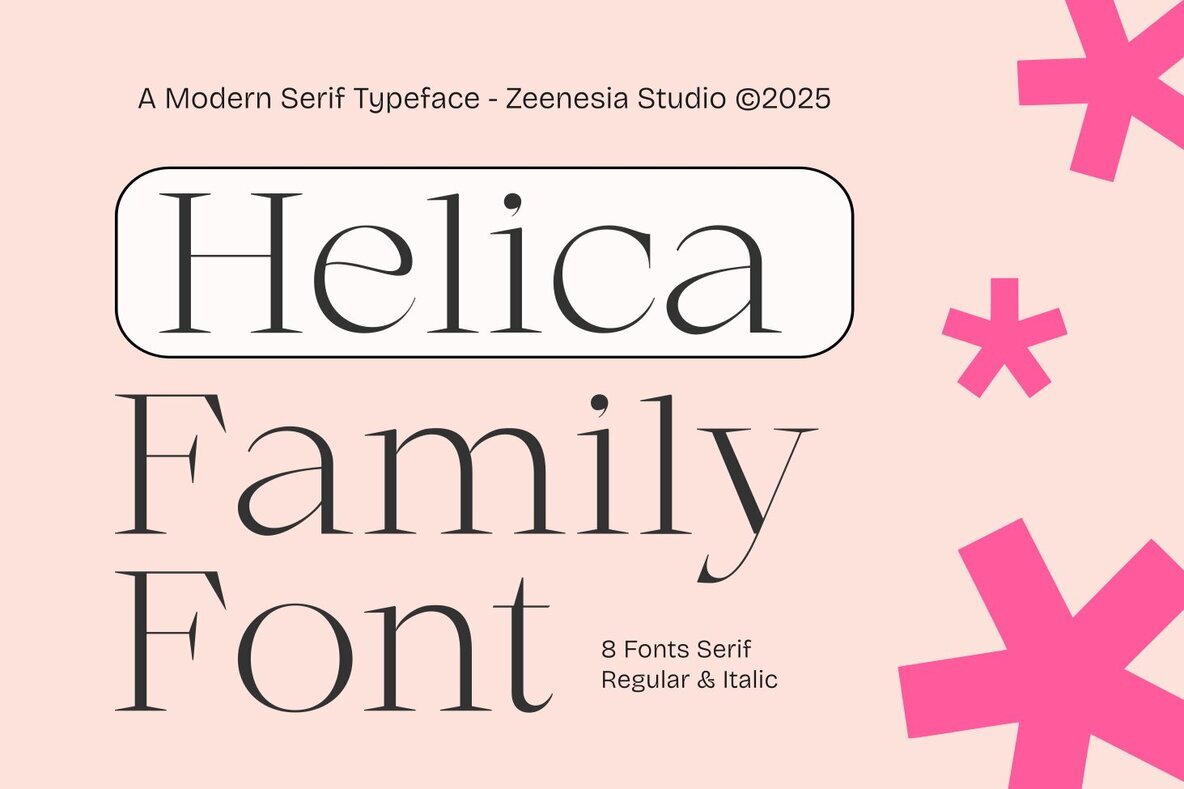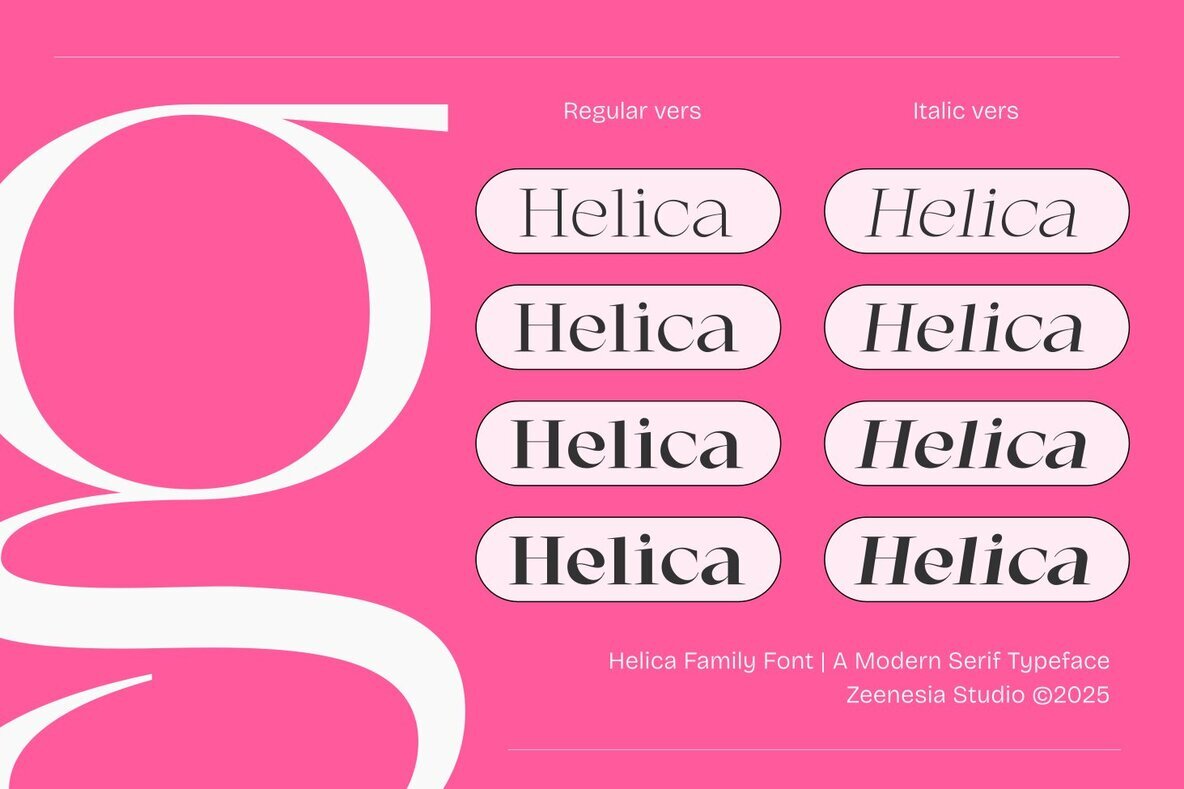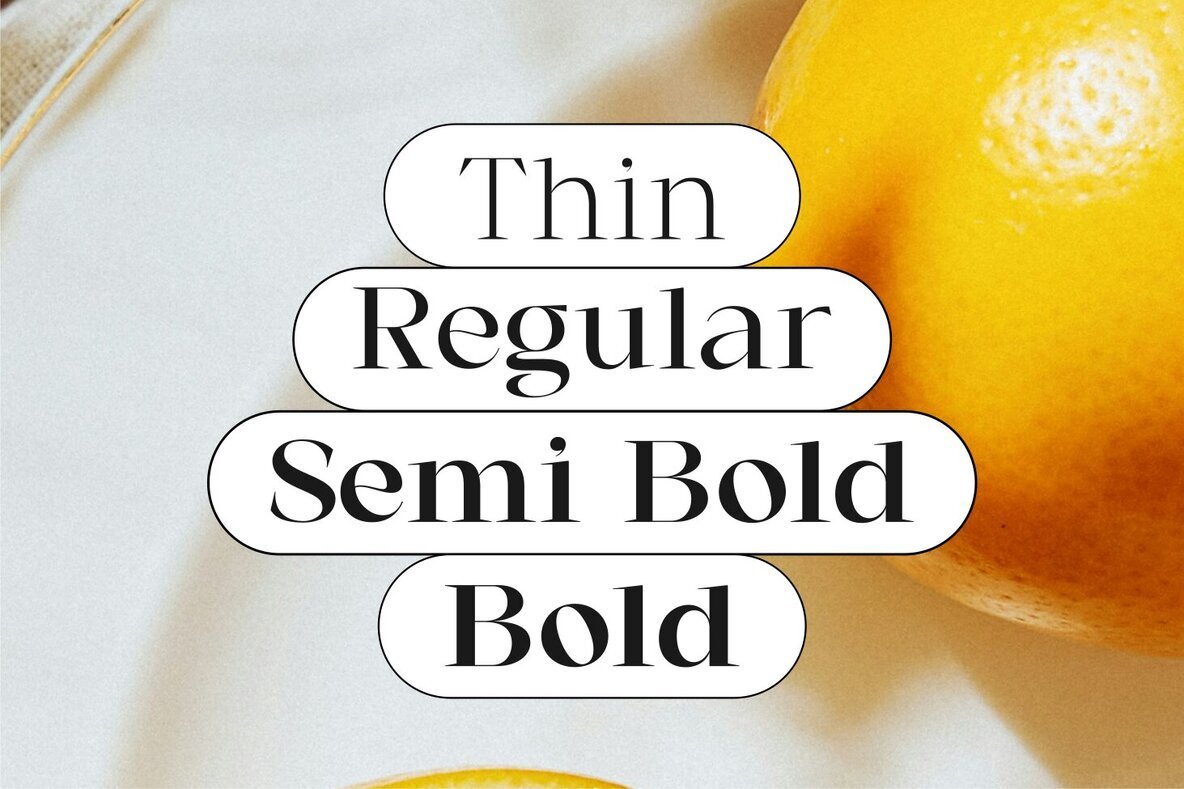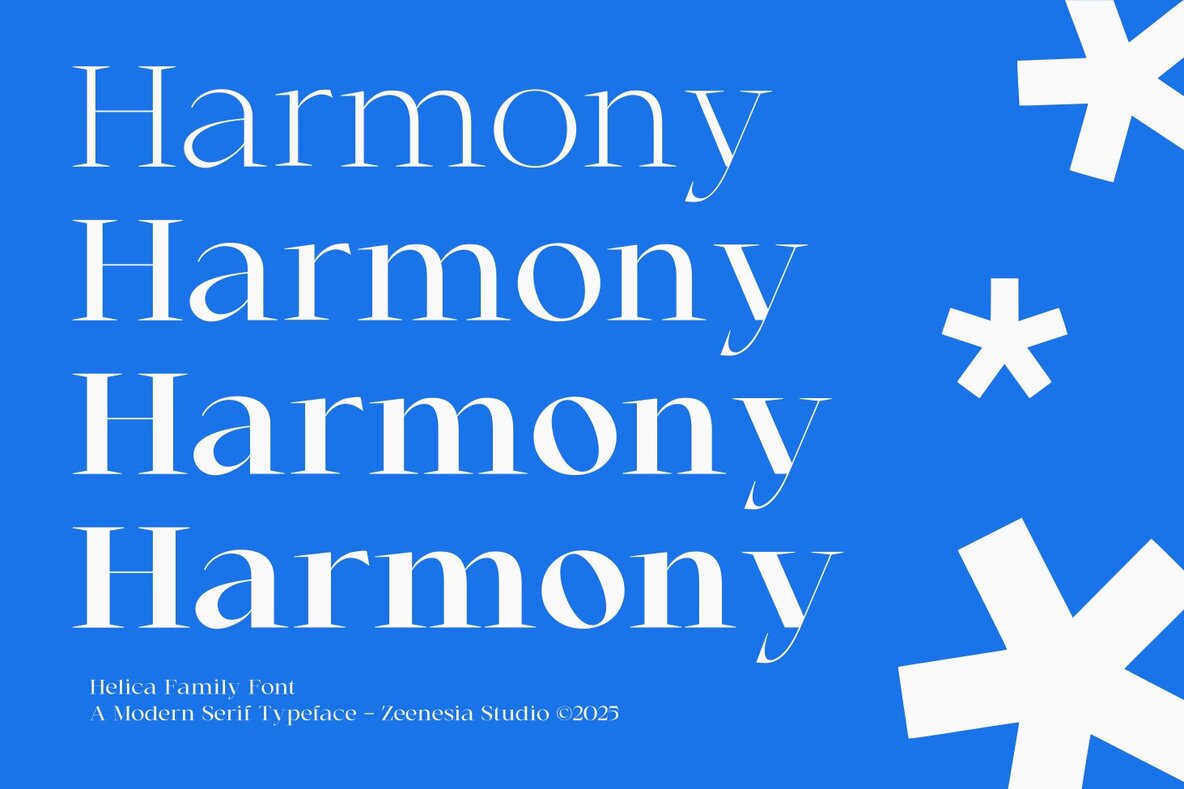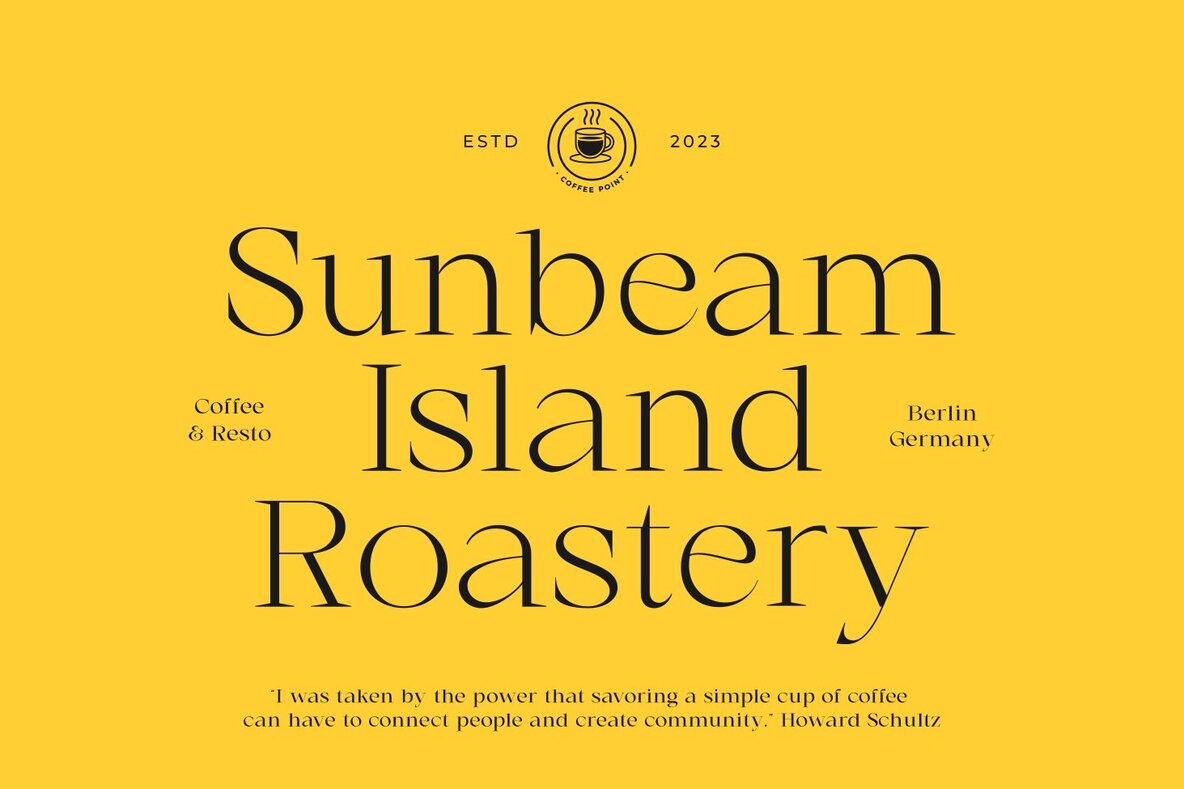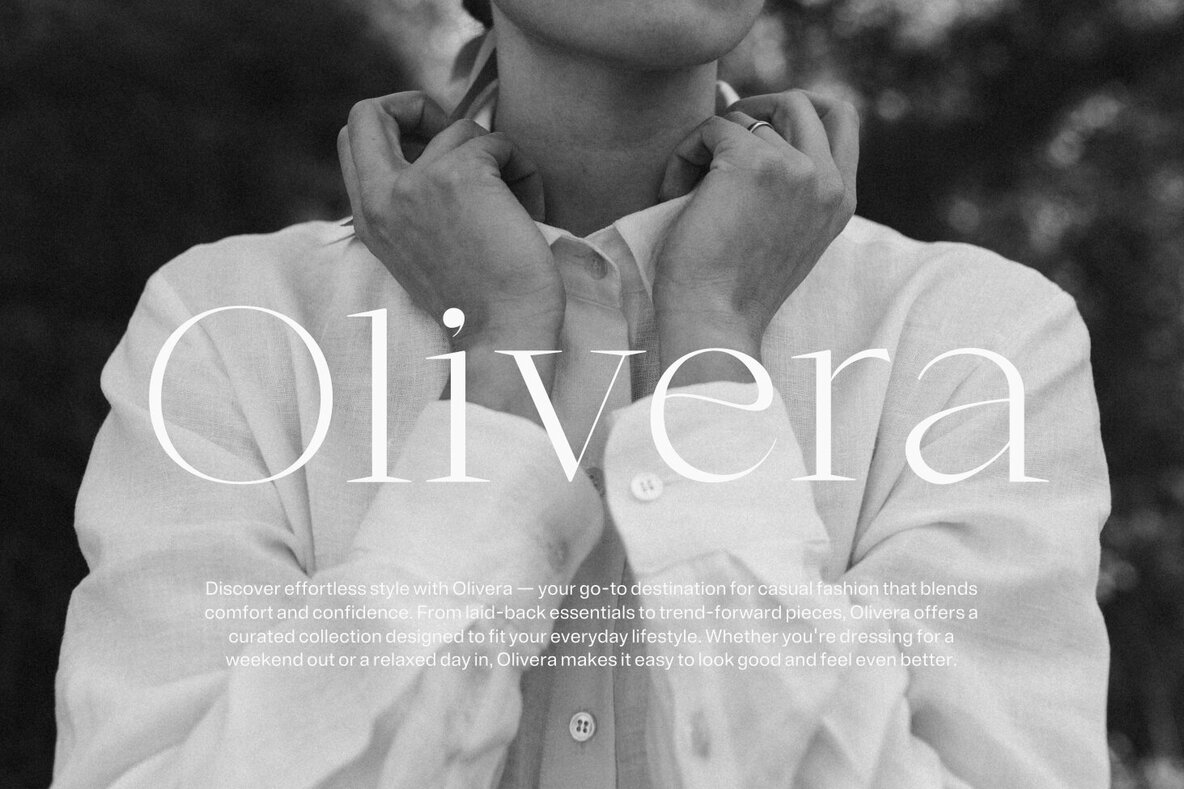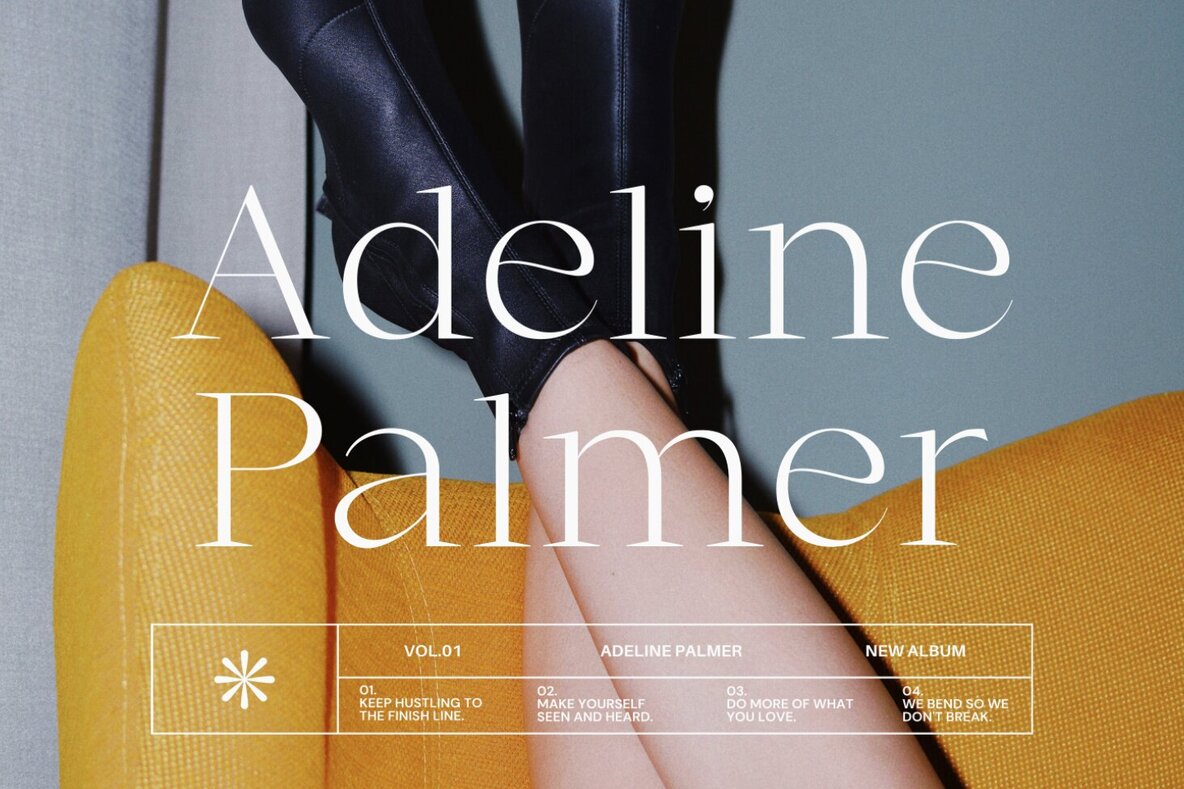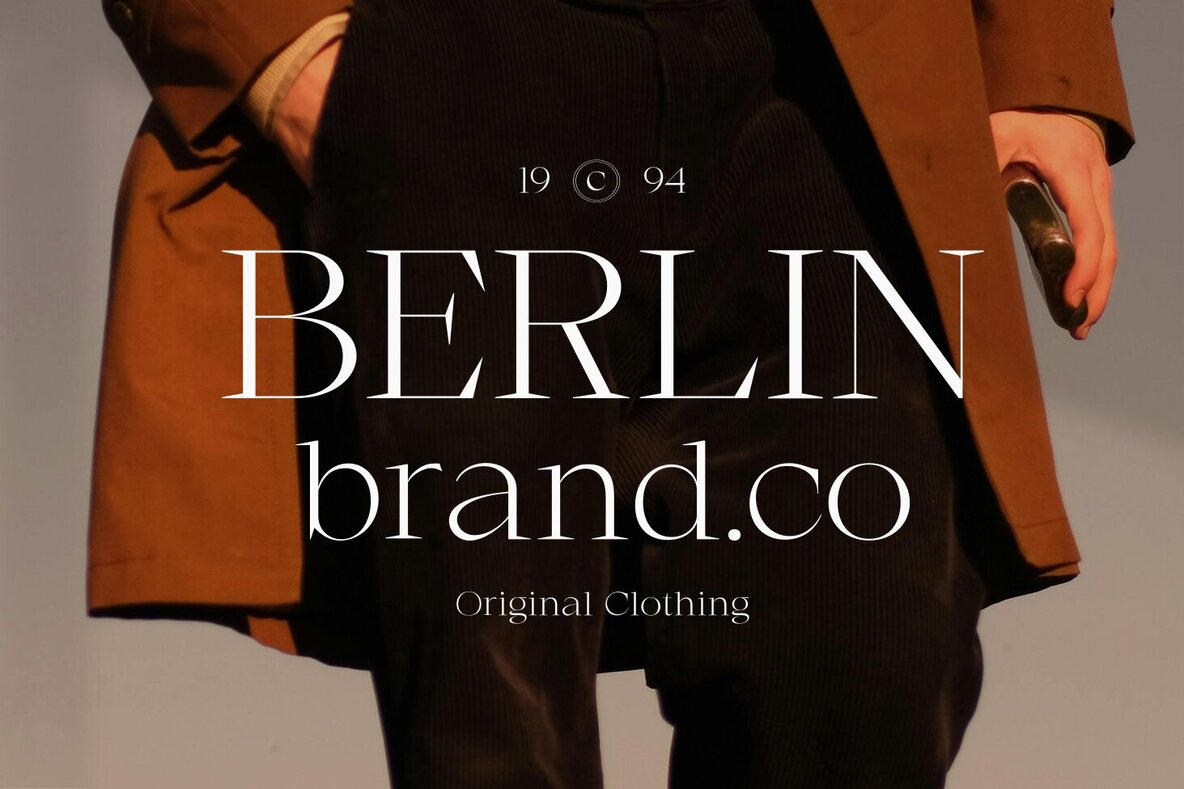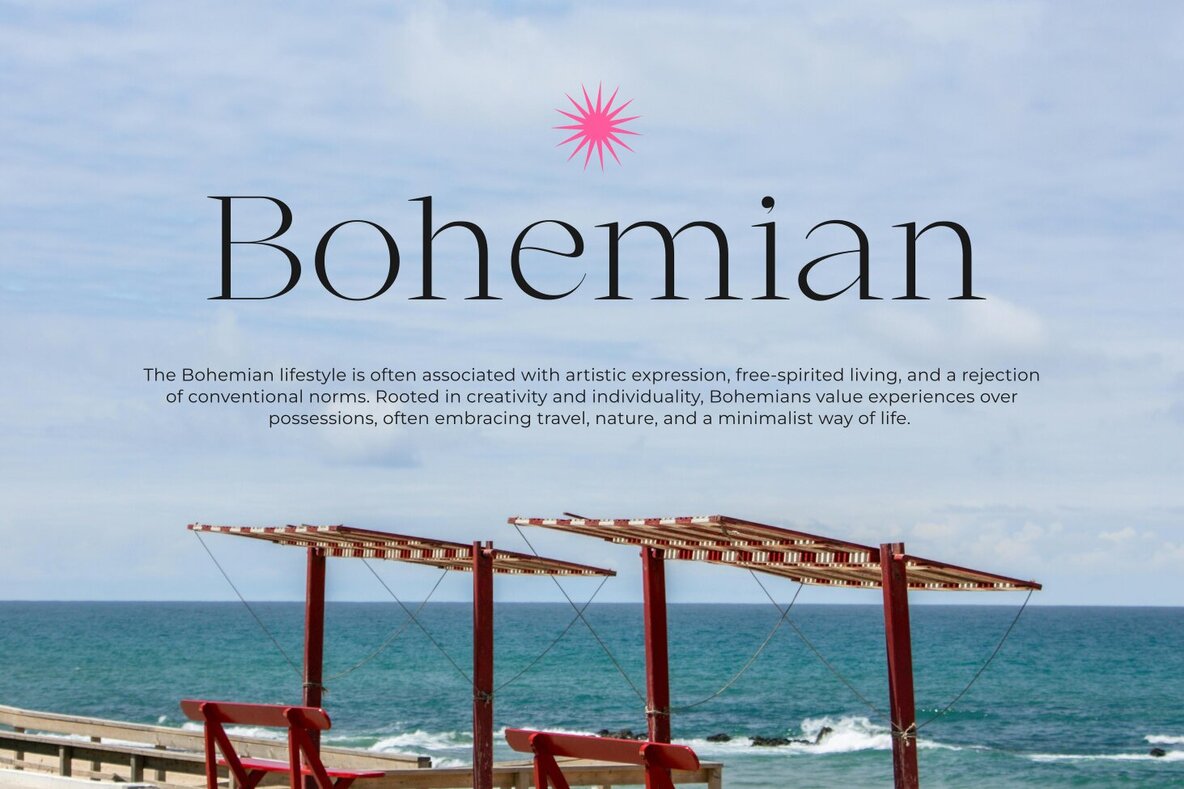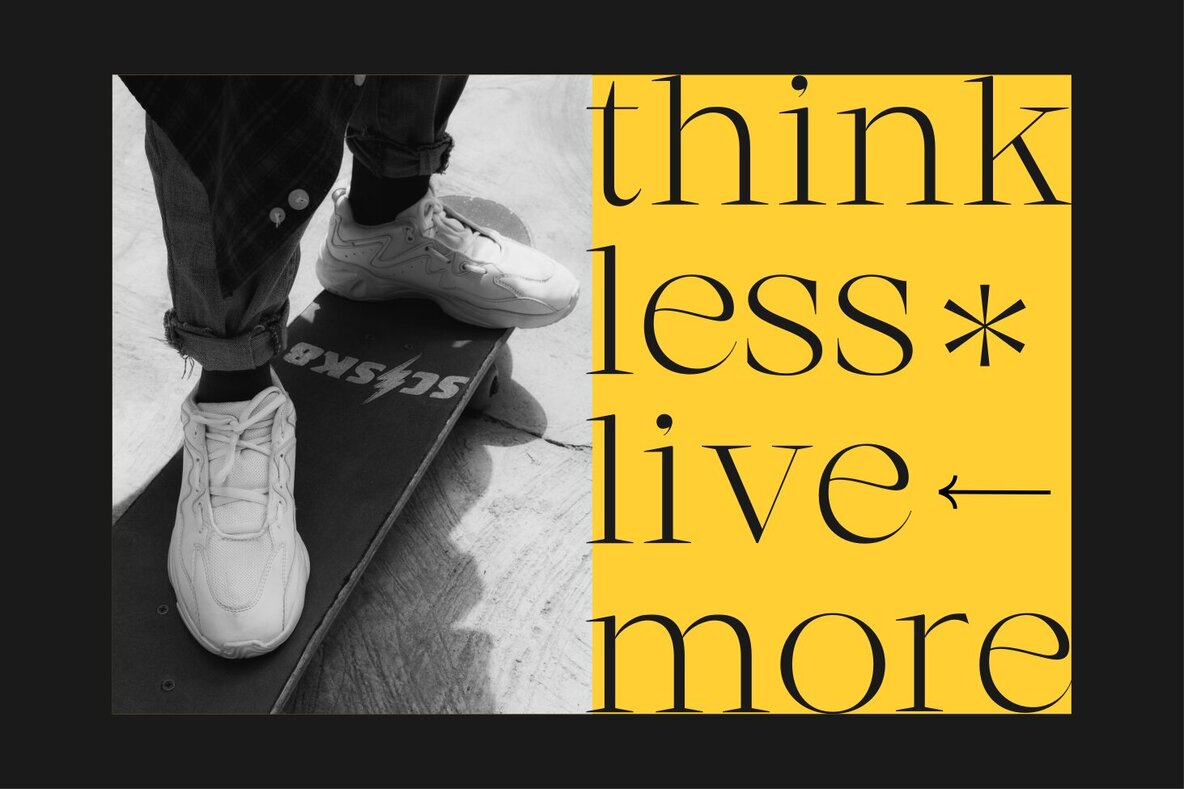
Helica Font
Helica is a stylish font family tailor-made to maintain elegance and simplicity. Featuring eight distinct styles including four weights—Thin, Regular, Semi Bold, and Bold—paired with their matching Italics, this font family offers the adaptability required for diverse projects. From branding and editorial design to web layouts and packaging, Helica stands out with its smooth curves and well-proportioned balance. Its refined appearance complements both headlines and body text seamlessly. Features:Helica: A Versatile Font Family for Modern Design